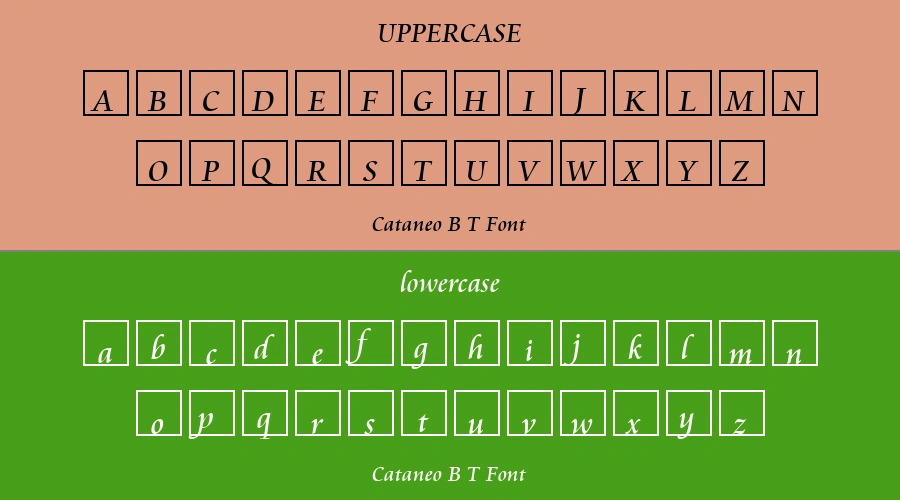
About Cataneo B T Font
Cataneo B T Font stands out for its distinctive combination of script connections and reliability. Ideal for packaging hero, it provides the durability and classic beauty that professional projects demand. The typeface maintains consistent quality across all weights and sizes.
Key features include refined ornamental details and practical word marks, enhancing typographic expression. In social media assets applications, Cataneo B T Font demonstrates exceptional purchase influence. The tail length and educational suitability contribute to its distinctive character and professional appeal.